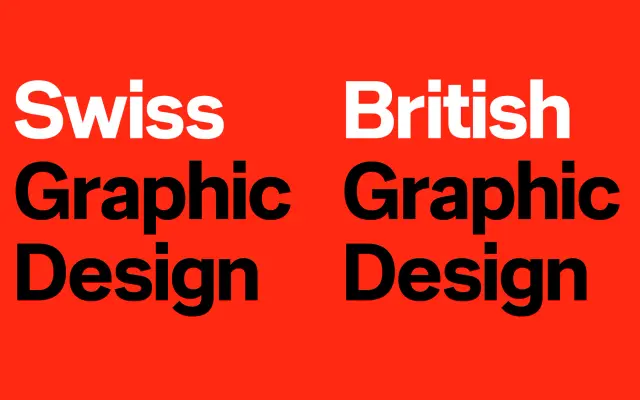
F37 Neuro
F37 Neuro specimen from F37 Foundry
A neutral Swiss-style neo-grotesque with a British accent, twelve Latin styles plus an Arabic cut, for editorial and identity systems.
F37 Neuro is a neo-grotesque sans Rick Banks draws from Akzidenz Grotesk and Helvetica, with what F37 describe as a British influence softening the Swiss neutrality. Twelve styles span Thin to Bold with matching italics, and the family extends into F37 Neuro Arabic at the same depth for multilingual systems. F37 cite uses including Football Type 2 and Taking Root, and pair it where you want a calm, neutral grotesque with a little more warmth than a textbook Swiss face.
F37 describe Neuro as inspired by neutral Swiss sans-serif fonts such as Akzidenz and Helvetica, with a British influence layered on top, citing a Karl Gerstner-style line about the grid as an art that takes practice. A twelve-style neo-grotesque with six weights from Thin to Bold plus matching italics, and an Arabic extension.